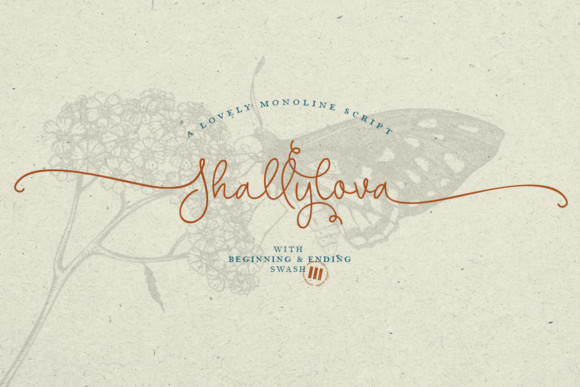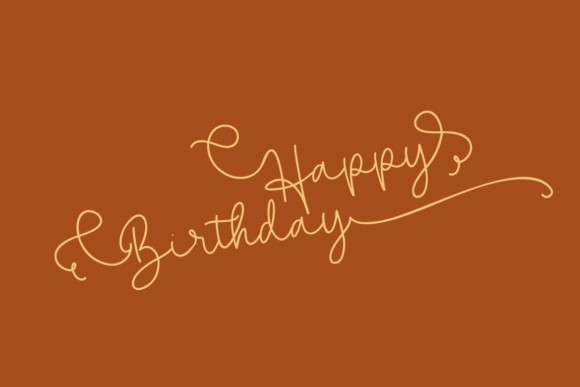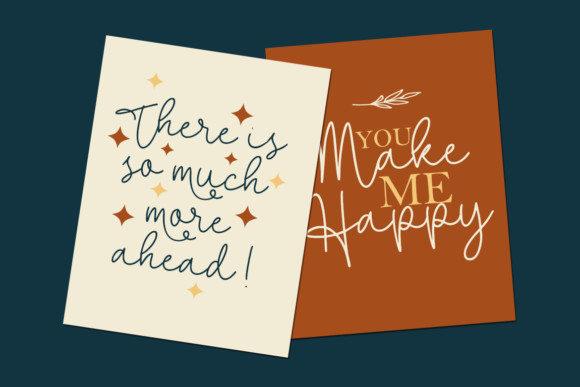
Shallylova Font
Shallylova FontShallylova is a lovely and delicate script font that exudes elegance and class. This font was particularly crafted for those who need a beautiful and refreshing look to their designs.